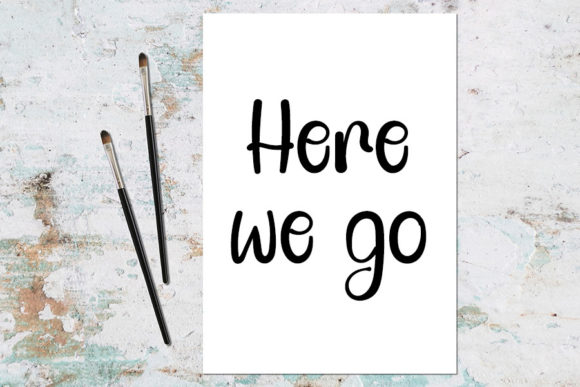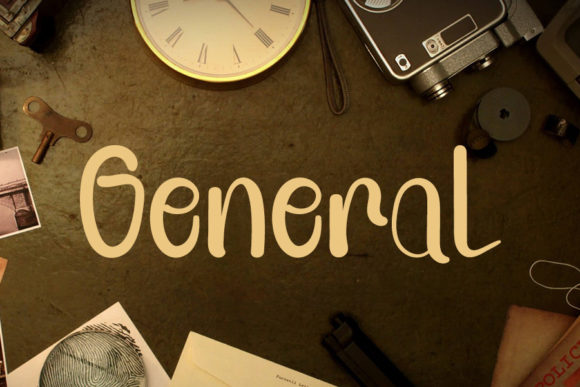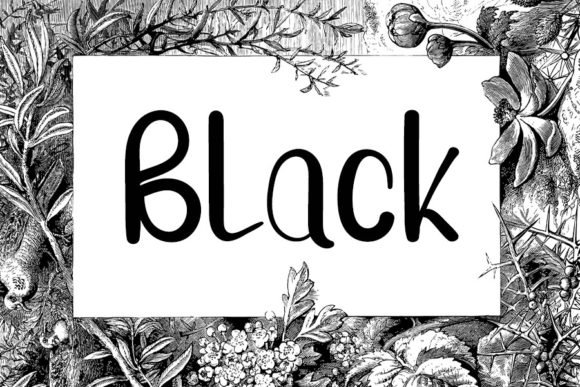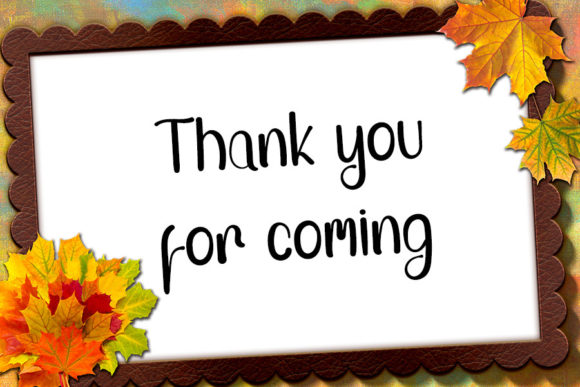
Discovering the Perfect Font for Your Next Creative Project
As a designer, there’s nothing quite like the thrill of discovering a new font that perfectly captures the essence of your vision. It’s that moment when the words on your screen suddenly spring to life, and you know you’ve found something special. For me, that moment came when I stumbled upon the Baby Love Font, a stylish handwritten font that exudes a contemporary atmosphere and impeccable form.
With its balanced and varied design, the Baby Love Font was crafted to elevate the beauty of your projects and leave a lasting impression. Whether you’re working on a branding campaign, a wedding invitation, or a children’s book, this font is sure to add a touch of elegance and sophistication. As a designer, you know the importance of choosing the right font to convey your message and capture your audience’s attention.
Baby Love Font Key Features
- Unique Characteristic: Hand-drawn, cursive design with a playful and whimsical feel
Baby Love Font Review
I recently had the chance to work with the Baby Love Font, and I’m excited to share my honest thoughts on this adorable font. ✨ First off, I love the whimsical feel it brings to any design project. The font is perfect for creating a playful, child-friendly atmosphere, and the cursive script is so endearing.
- ✨ Unique and playful script style that adds a touch of personality to designs
- ✨ Perfect for creating a child-friendly or baby-themed design
- ✨ Works well in conjunction with bold, sans-serif fonts for a nice contrast
However, I do have a few limitations to mention. ⚠️ While the font is lovely, it can be a bit challenging to read at smaller font sizes. Additionally, the font might not be the best choice for designs that require a more formal or professional tone.
- ⚠️ Can be difficult to read at smaller font sizes
- ⚠️ Might not be suitable for formal or professional designs
Overall, I think the Baby Love Font is a lovely addition to any designer’s toolkit. While it may have some limitations, its playful charm and unique style make it a great choice for the right project.
For a cute and playful design, pair the Baby Love Font with pastel colors and whimsical graphics.
For a more professional look, pair the Baby Love Font with a clean and minimalist background.
For a baby shower invitation, pair the Baby Love Font with cute graphics and pastel colors.
The Baby Love Font is perfect for:
- Baby shower invitations
- Baby product labels
- Children’s clothing designs
- Playful social media graphics
Remember to have fun and be creative with the Baby Love Font!